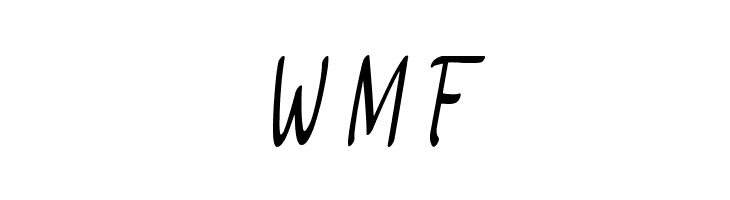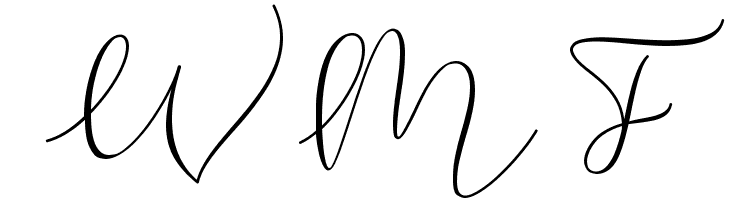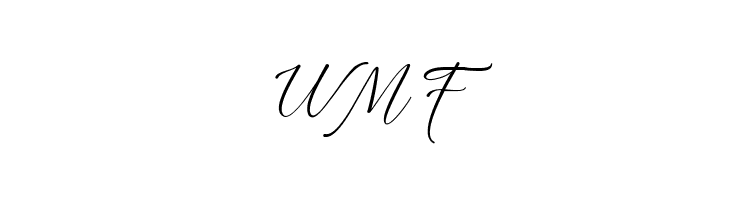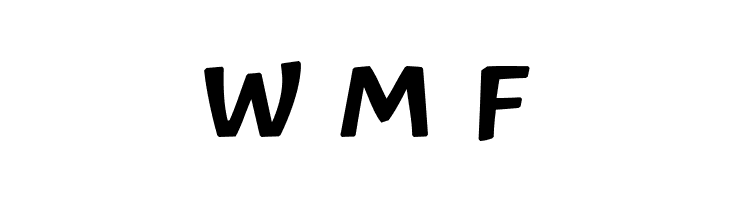
A playful and casual handwritten font with an authentic, personal touch.
A modern, bold font with slightly curved letterforms and a friendly appearance.
A bold, italicized font with angular, runic-inspired design.
A bold, angular font inspired by ancient runic alphabets, perfect for decorative use.
An angular, italicized font with a runic, ancient script style.
A modern, cursive script font with elegant, flowing strokes.
A fluid and elegant handwritten script font with a natural flow.
Bold, condensed sans-serif font for multilingual use.
An elegant and flowing script font with interconnected letterforms and artistic flourishes.
An elegant, cursive font with flowing, ornate letters and high contrast.
A bold, thorny, and gothic font with intricate, jagged edges.
A lively, expressive handwritten font with fluid strokes.
A playful, handwritten script font with fluid connections and a casual vibe.
A playful, handwritten font with tall, narrow letters and a casual style.
An elegant script font with flowing, interconnected letters and graceful swashes.
An elegant, flowing script font with a handwritten style.
A flowing, cursive font with elegant, handwritten strokes.
A lively, handwritten font with a playful and dynamic style.
A bold, high-contrast serif font with a vintage yet modern flair.
A lively handwritten font with a playful and modern style.
A flowing, cursive font with elegant, interconnected letters.
A whimsical and decorative font with flowing, cursive-like strokes and playful flourishes.
An elegant cursive script font with flowing curves and artistic flourishes.
A modern, italicized sans-serif font with sleek, elongated letterforms.
A sleek, modern font with elongated, narrow characters and high contrast.
A sleek, modern, light italic font with elongated, condensed characters.
A bold, geometric sans-serif font with a modern, condensed style.
A modern, narrow sans-serif font with clean lines and elegant style.
A sophisticated script font with elegant loops and high contrast strokes.
An elegant script font with flowing, interconnected letters and intricate swashes.
An elegant, cursive handwritten font with high contrast and fluid strokes.